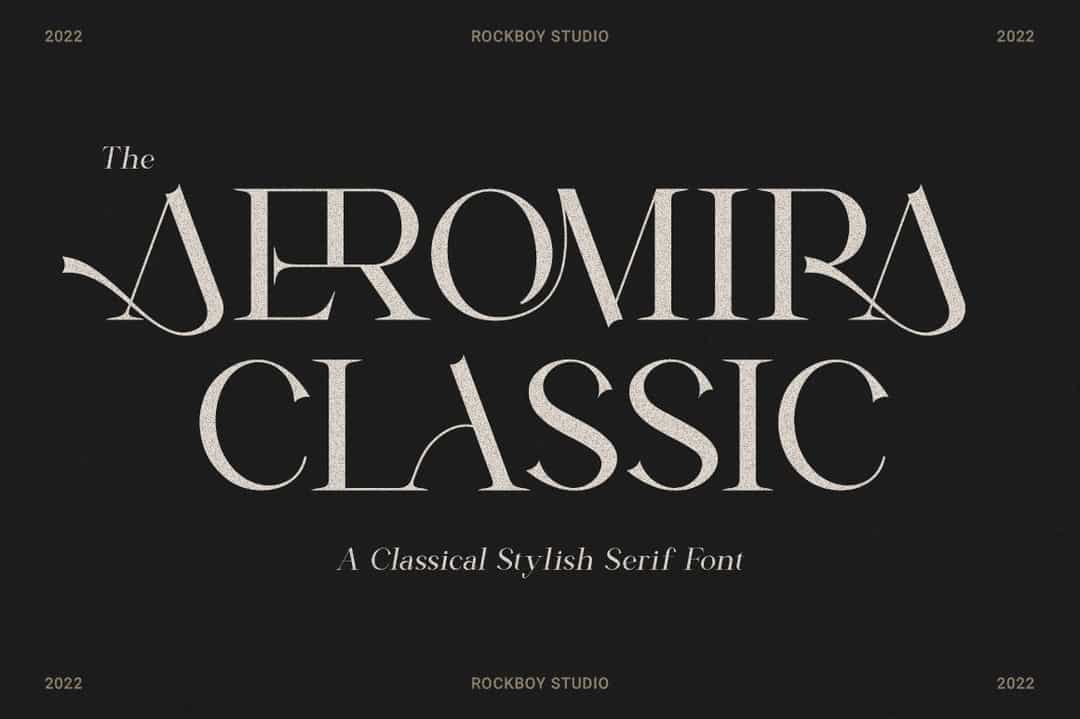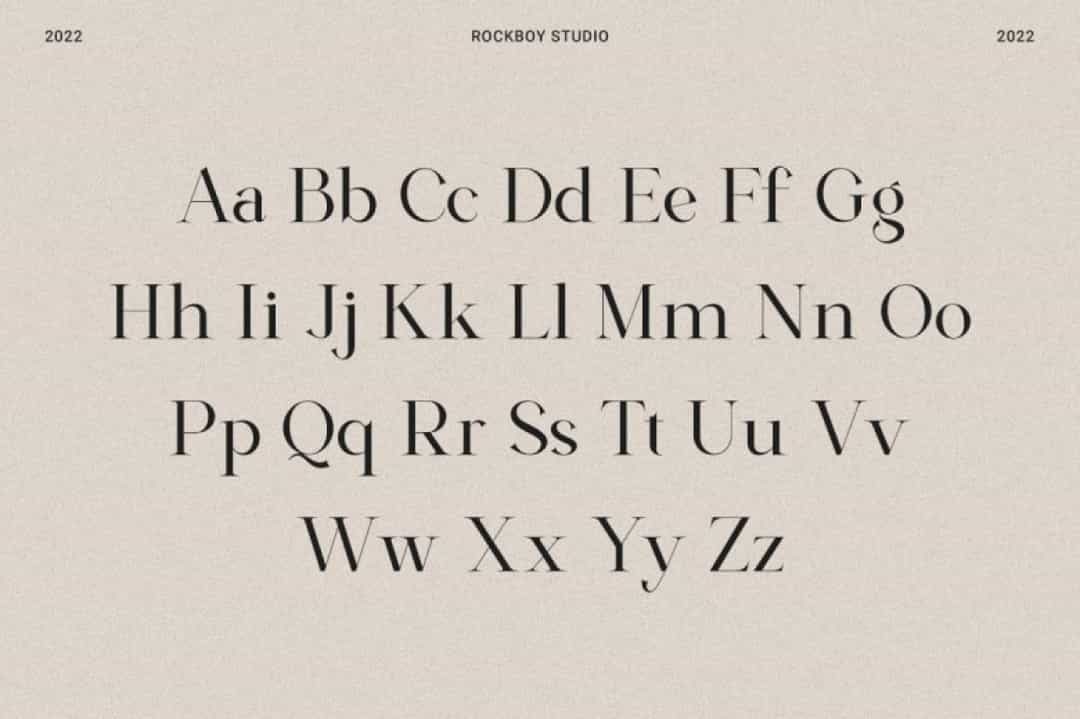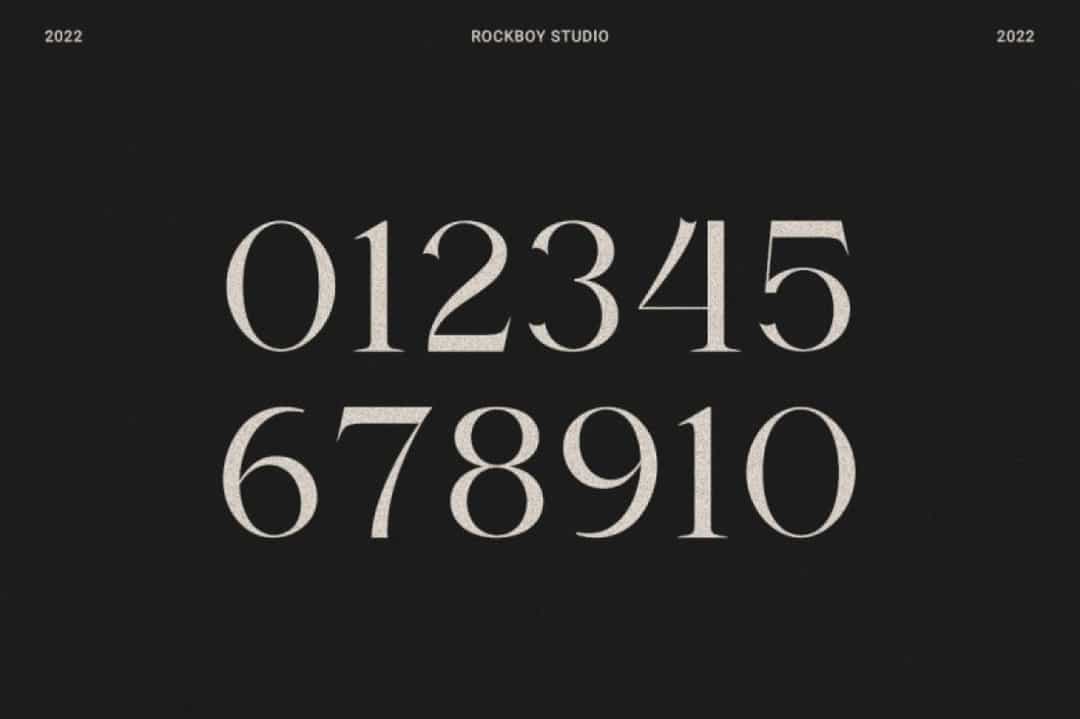
Aeromira Classic is an exquisite and sleek serif typeface. Boasting classical calligraphic motifs while appearing modern and chic, Aeromira Classic will enchant any project to an entirely new level! You will fall in love with it instantly!